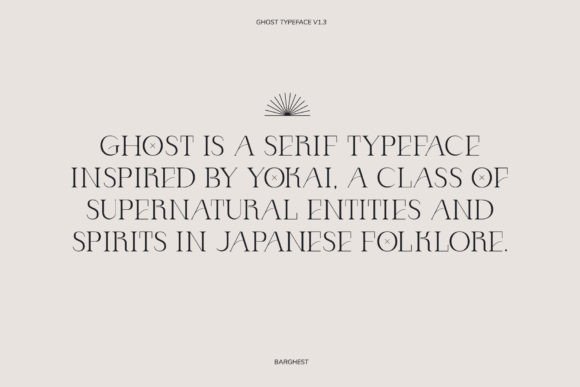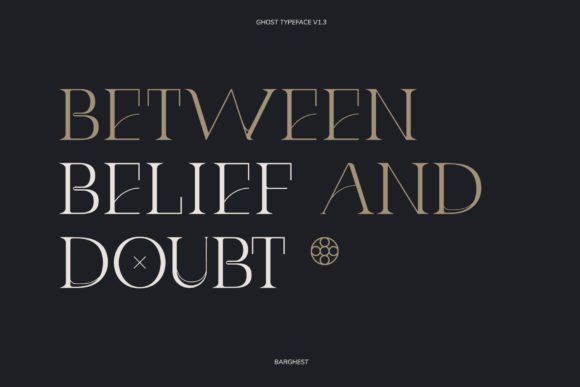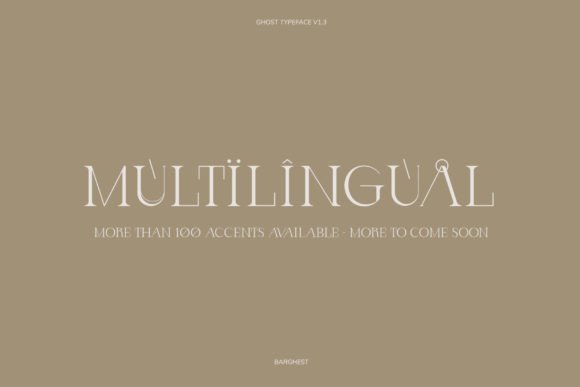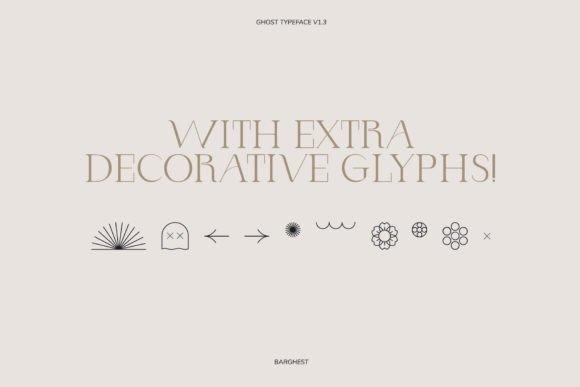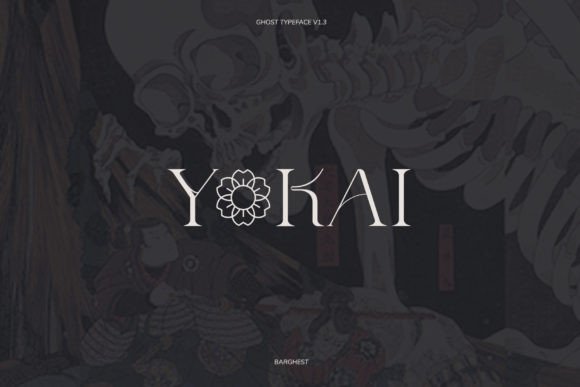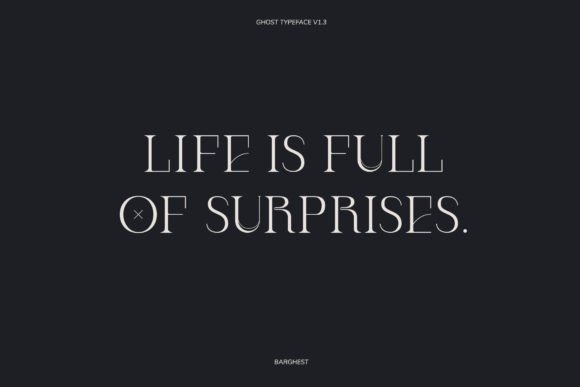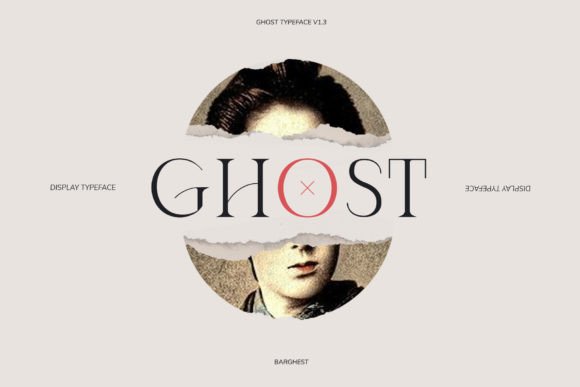
Unveiling the Enchanting World of Ghost Font: A Serif Typeface Inspired by Japanese Folklore
In the realm of typography, few fonts have managed to capture the essence of mystique and wonder as effectively as the Ghost Font. This serif typeface draws its inspiration from Yokai, a class of supernatural entities and spirits in Japanese folklore, transporting designers and crafters to a magical world of creativity and imagination. With its modern yet whimsical style, Ghost Font is poised to revolutionize the way we approach design, adding a touch of the extraordinary to any project.
The Origins of Ghost Font: Yokai and Japanese Folklore
Yokai, a term deeply rooted in Japanese culture, refers to a diverse array of supernatural beings, often depicted as mischievous, magical, or even terrifying creatures. These entities have captivated the imagination of artists, writers, and designers for centuries, inspiring a wide range of creative works. Ghost Font taps into this rich cultural heritage, channeling the essence of Yokai into a unique and captivating typeface.
Design Characteristics of Ghost Font
Ghost Font boasts a distinctive serif design, characterized by elegant lines, subtle curves, and a hint of playfulness. Its modern aesthetic ensures that it remains versatile and adaptable, suitable for a variety of design applications, from digital media to print materials. The font’s whimsical touches evoke a sense of enchantment, making it perfect for projects that require a dash of magic and wonder.
Key Features of Ghost Font
- Serif Design: Ghost Font features a classic serif design, adding a touch of sophistication and elegance to any project.
- Modern Aesthetic: The font’s modern style ensures that it remains fresh and relevant, suitable for contemporary design applications.
- Whimsical Touches: Ghost Font’s playful curves and lines inject a sense of whimsy and enchantment, perfect for projects that require a touch of magic.
- Versatility: The font’s adaptability makes it suitable for a wide range of design applications, from digital media to print materials.
Applications of Ghost Font: Bringing Magic to Your Designs
Ghost Font’s versatility and enchanting style make it an ideal choice for a variety of design projects, including:
- Branding and Logo Design: Add a touch of mystique to your brand identity with Ghost Font’s elegant and whimsical design.
- Digital Media: Use Ghost Font to create captivating digital content, such as social media graphics, blog posts, and website headers.
- Print Materials: Bring a sense of wonder to your print materials, including business cards, brochures, and posters.
- Packaging Design: Add a dash of magic to your product packaging with Ghost Font’s unique and captivating design.
Tips for Using Ghost Font Effectively
To get the most out of Ghost Font, consider the following tips:
- Experiment with Font Sizes: Ghost Font’s elegant design shines at larger font sizes, making it perfect for headings and titles.
- Pair with Complementary Fonts: Combine Ghost Font with sans-serif fonts to create a striking contrast and add visual interest.
- Play with Colors: Experiment with different colors to bring out the whimsical and magical qualities of Ghost Font.
Ghost Font is a game-changing serif typeface that invites designers and crafters to enter a world of magic and wonder. Inspired by Yokai and Japanese folklore, this enchanting font is poised to revolutionize the way we approach design. With its modern yet whimsical style, Ghost Font is the perfect choice for any project that requires a touch of the extraordinary. So why settle for ordinary typography when you can conjure up something truly magical with Ghost Font?